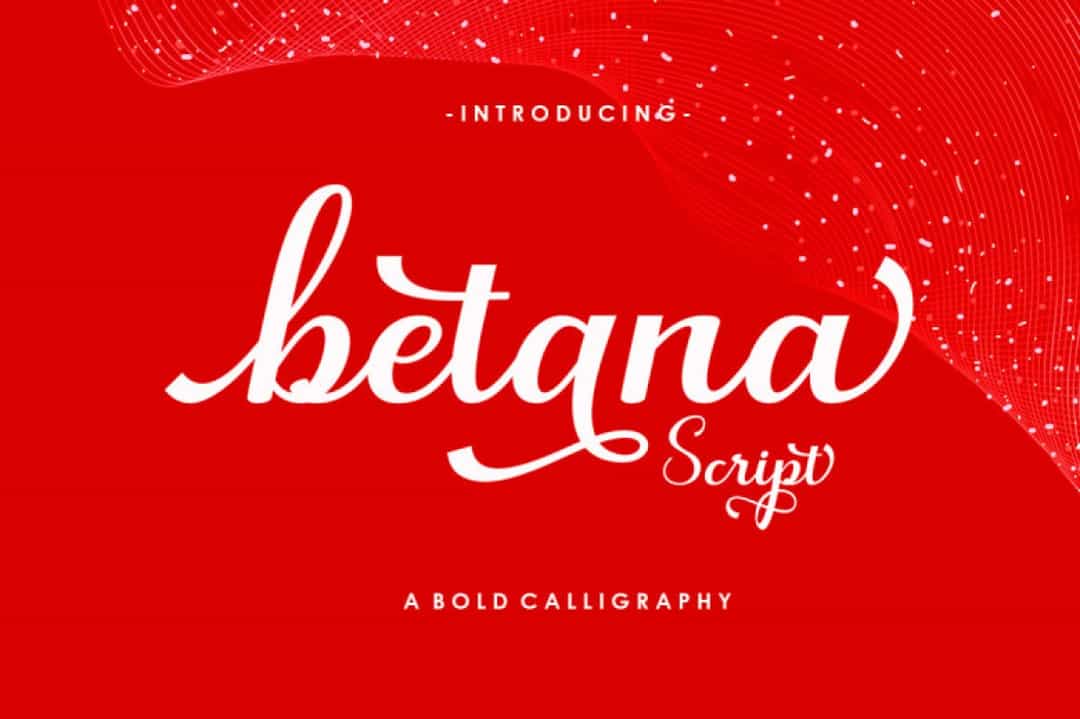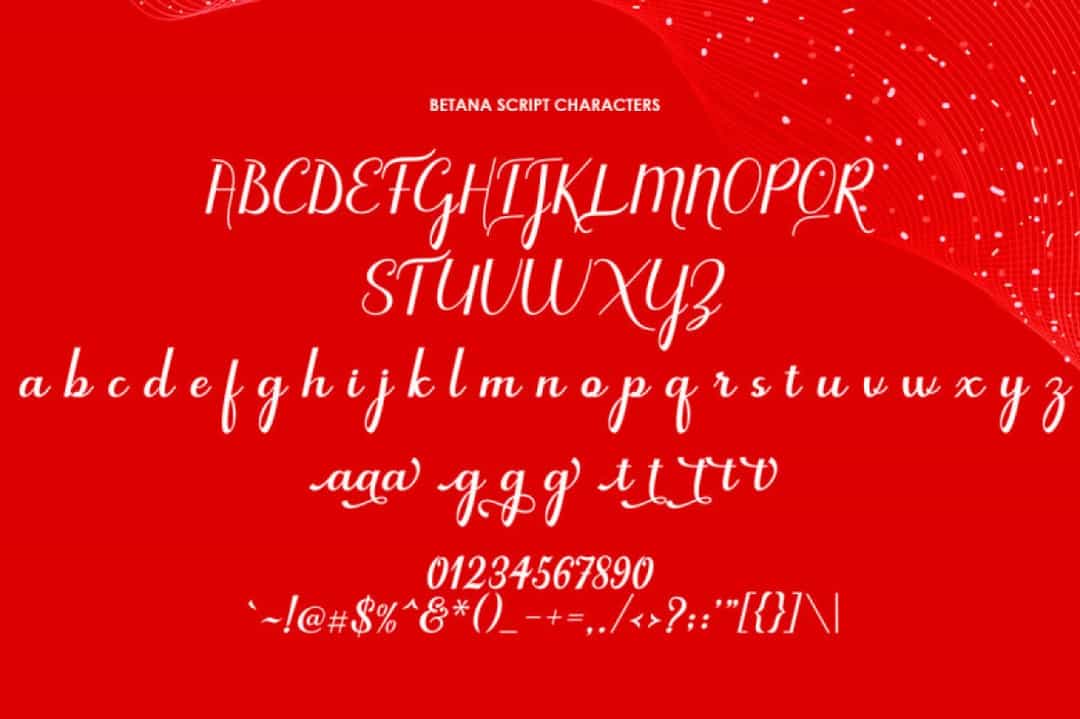
Betana is an elegant calligraphy font with whimsical characters and can easily fit into any creative project imaginable! PUA encoded, so users are able to access each and every glyph and swash without issue!